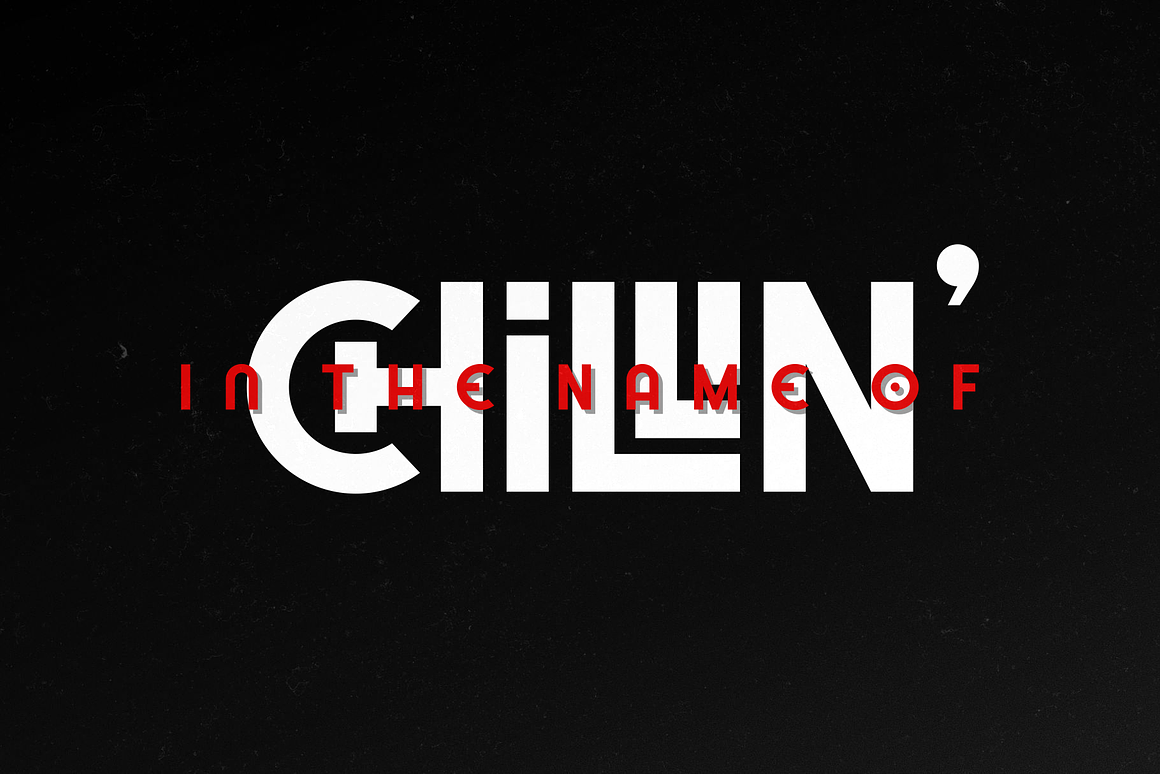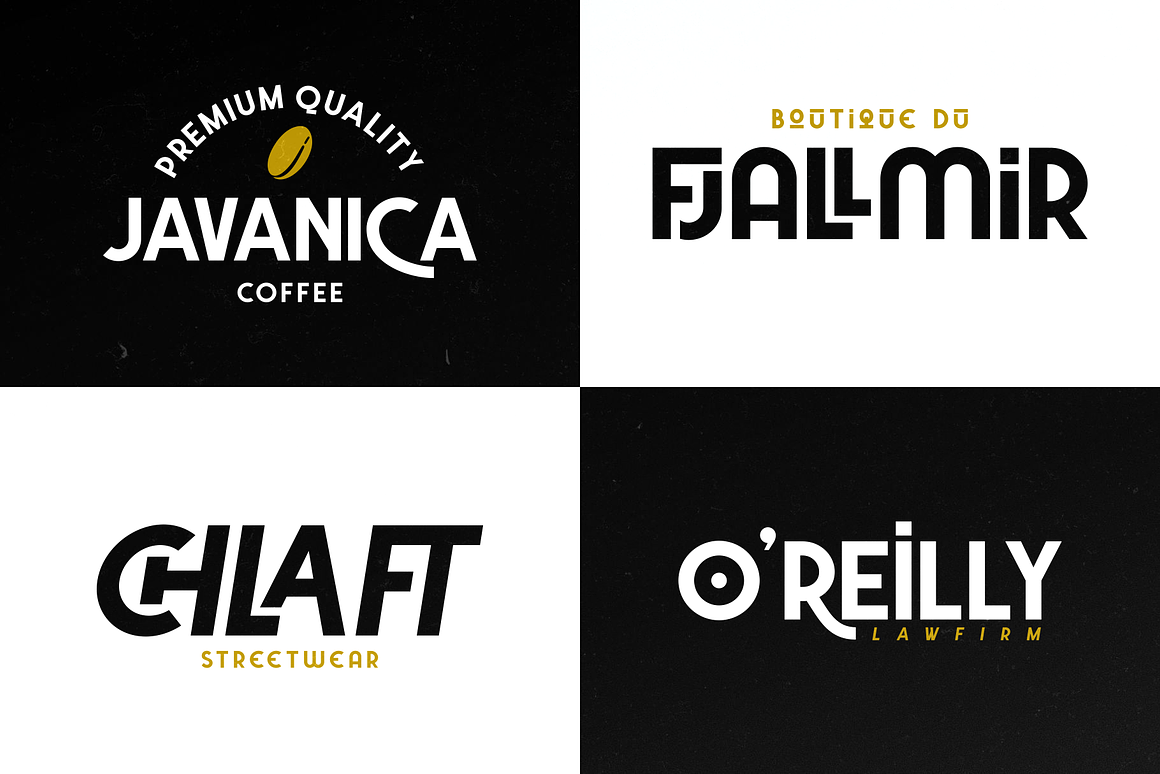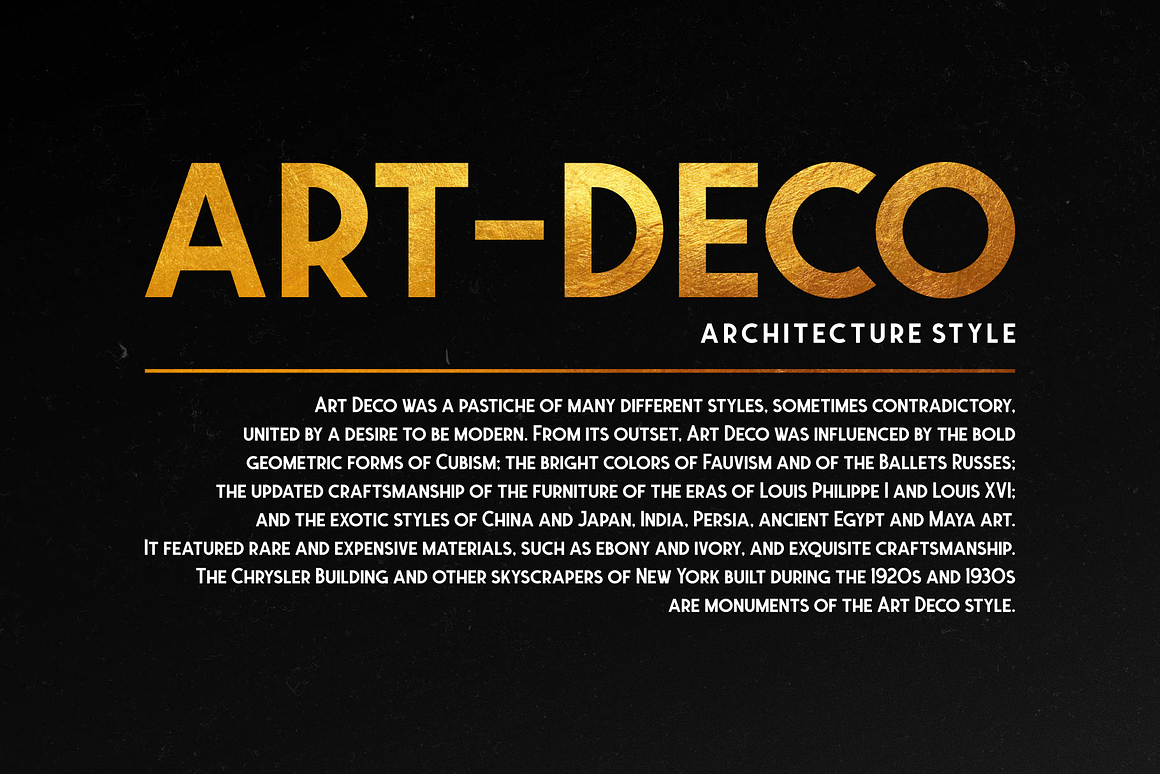
Ferghaus Sans Font
Ferghaus Sans Font is perfect for modern corporate branding, clean web design, contemporary logos, minimalist marketing materials, professional presentations, sleek app interfaces, sophisticated business communications, elegant packaging design, refined editorial layouts, and cutting-edge digital platforms.
What makes Ferghaus Sans Font so exciting is its architectural precision that combines structural clarity with humanist warmth, creating typography that communicates both technical excellence and approachable professionalism. This distinctive sans-serif typeface embodies design intelligence and functional beauty, delivering visual communication that builds trust while maintaining contemporary sophistication.
The Ferghaus Sans Font family includes thin, light, regular, medium, bold, and black weights, complete with matching italics and architectural design features that provide designers with comprehensive tools for creating structured and memorable typography that embodies both precision and accessibility.
Experience architectural elegance with Ferghaus Sans Font Free Download, a masterfully engineered sans-serif typeface that brings structural sophistication and design intelligence to contemporary projects. This exceptional font embodies the perfect fusion of architectural precision and humanist accessibility, making it the ideal choice for brands that represent reliability, innovation, and thoughtful design.
The precisely structured letterforms of Ferghaus Sans Font showcase architectural elegance with intelligent character that creates instant recognition of professional quality and design sophistication. Each character displays meticulous attention to maintaining the structural clarity that defines architectural excellence while ensuring superior readability and professional versatility. The font's architectural construction and intelligent spacing contribute to its sophisticated appearance and professional appeal.
Design-conscious brands and architecture-focused organizations consistently choose Ferghaus Sans Font for projects requiring structural sophistication and intelligent presentation. The comprehensive character set includes uppercase and lowercase letters, numerals, extensive punctuation, international accents, and architectural elements that provide complete support for professional branding applications and sophisticated design compositions.
The structural versatility of Ferghaus Sans Font ensures exceptional performance across both traditional print and modern digital platforms. Whether developing professional brand identities, creating architectural marketing materials, or designing sophisticated corporate communications, this remarkable typeface delivers consistent intelligence that resonates with audiences appreciating thoughtful design and structural excellence.
Transform your most sophisticated projects with Ferghaus Sans Font Free Download. This extraordinary sans-serif typeface brings architectural sophistication and design intelligence to typography, making it the essential choice for designers who create experiences that celebrate the beauty of structural thinking and the enduring appeal of intelligent contemporary design.